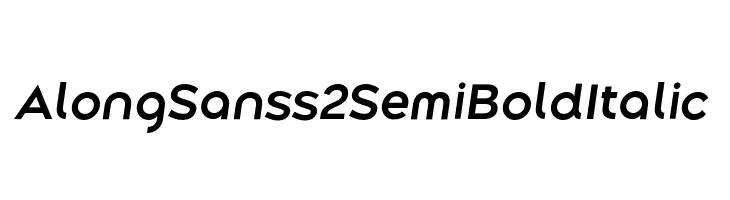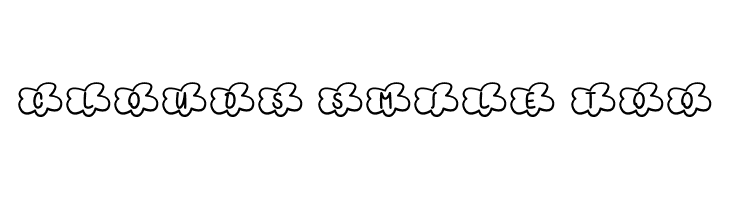
A playful, cloud-themed font with bold, rounded characters.
A bold, distressed font with a grunge, textured appearance.
A playful, dinosaur-themed font with bold, cartoonish characters.
A playful, handwritten font with bold, dynamic strokes and a casual style.
A lively, handwritten script font with fluid, connected letters.
A playful, hand-drawn font with bold, rounded strokes and a casual vibe.
A modern, semi-bold italic typeface with clean lines and versatile design.
A bold, flowing script font with a handwritten, elegant style.
A bold, italicized font with a halftone effect, exuding a modern and dynamic style.
A dot-matrix style font inspired by digital displays and LED screens.